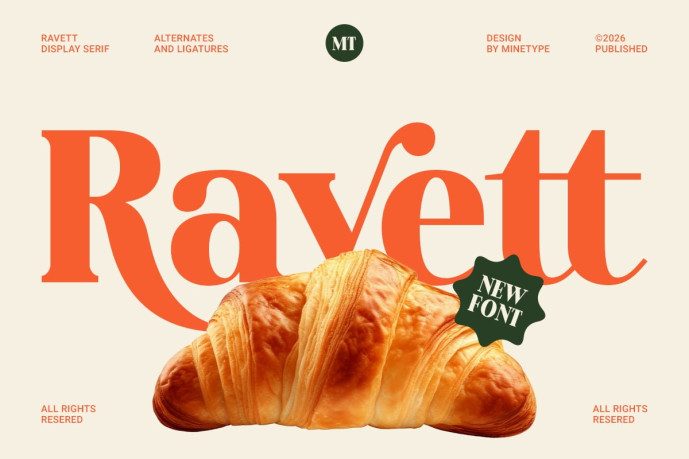
Ravett – Bold Serif Font
Designer: Panca Hasan
Introducing Ravett – Bold Serif Font, a powerful and sophisticated serif typeface designed to make a strong visual statement. Featuring bold letterforms, elegant curves, and distinctive ligatures, Ravett blends classic serif beauty with modern confidence, making it perfect for premium branding and editorial design.
Ravett is ideal for logos, luxury packaging, magazine headlines, fashion campaigns, product labels, social media graphics, invitations, and high-end branding projects. Its bold personality and refined details help create memorable typography that stands out while maintaining excellent readability.
Features:
Uppercase & Lowercase
Numerals & Punctuation
Alternates & Ligatures
Multilingual Support
OpenType Features
Create stunning and timeless typography with Ravett.